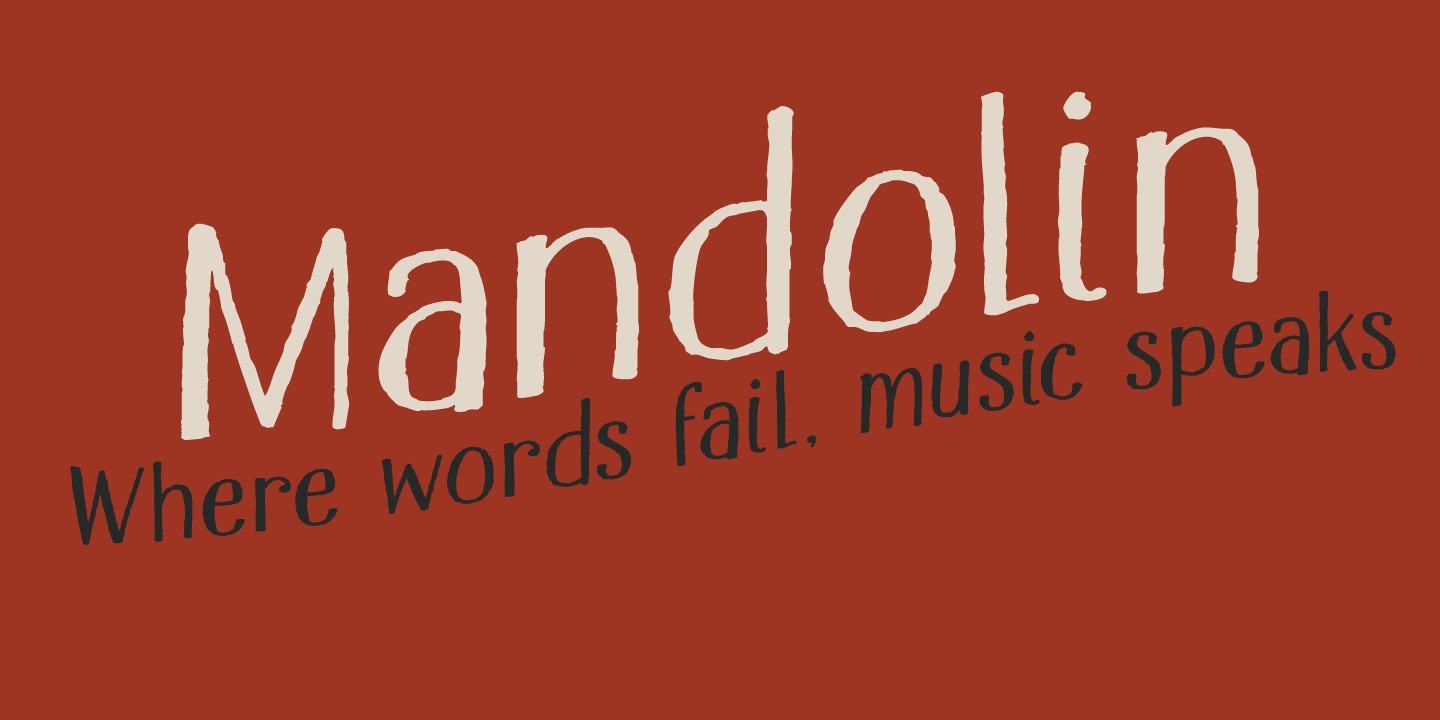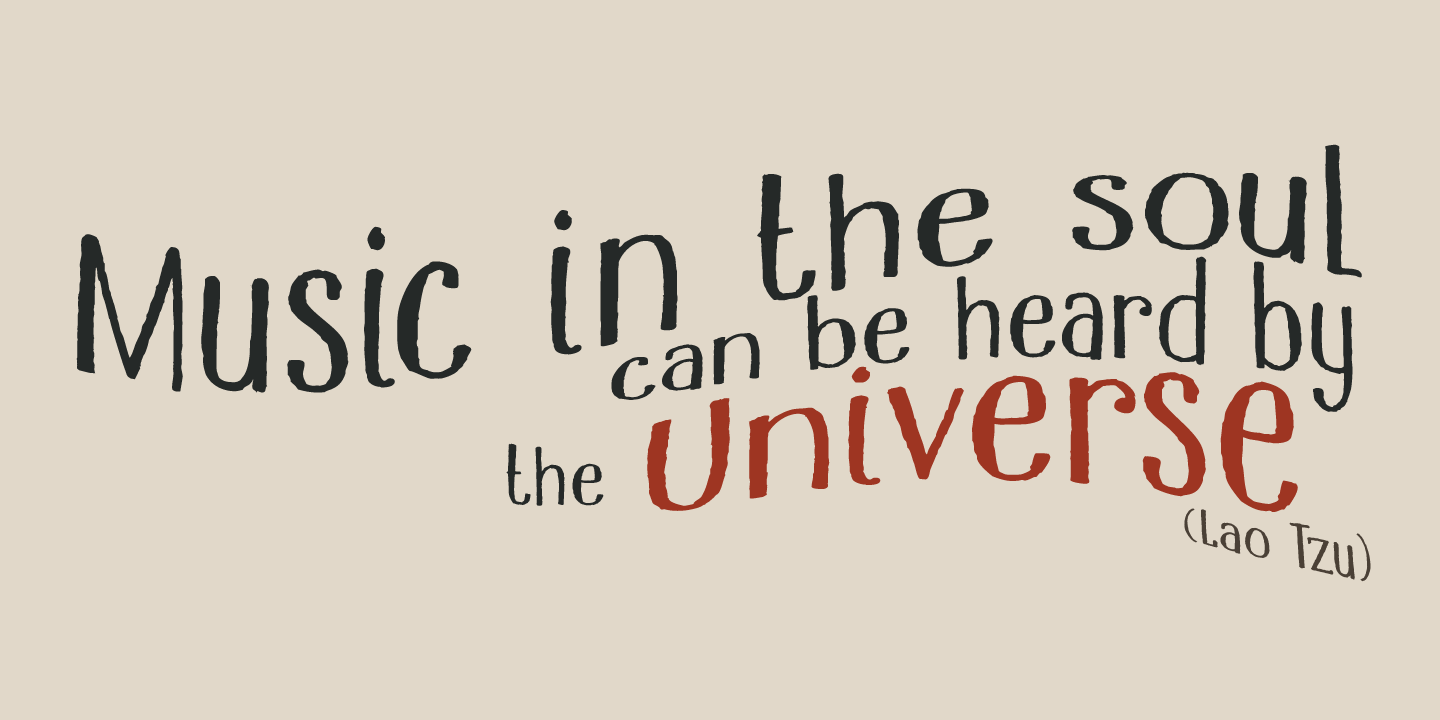
Mandolin
Mandolin is a handmade 'Didone-ish' font with a bit of a rough edge. Mandolin was created using a wonderful (and expensive) pen I found in Canterbury, England. I am aware that this information isn't too relevant, but I thought I'd share it with you nonetheless? Mandolin comes with all diacritics.